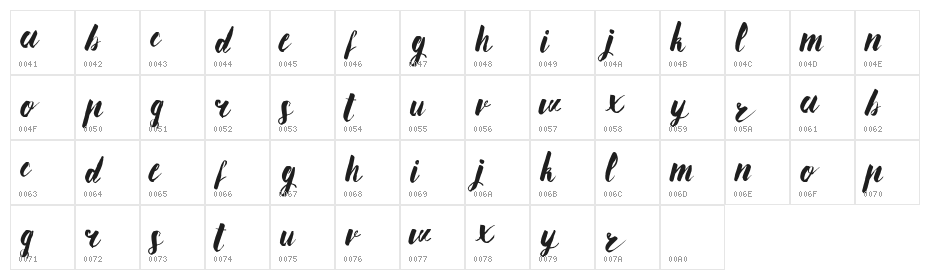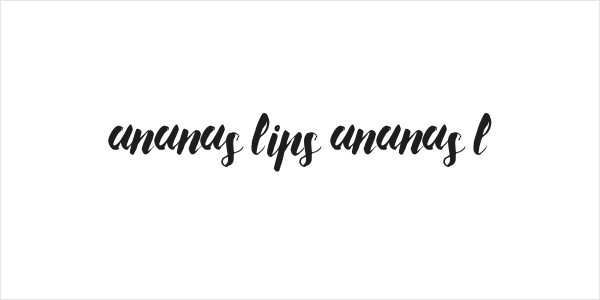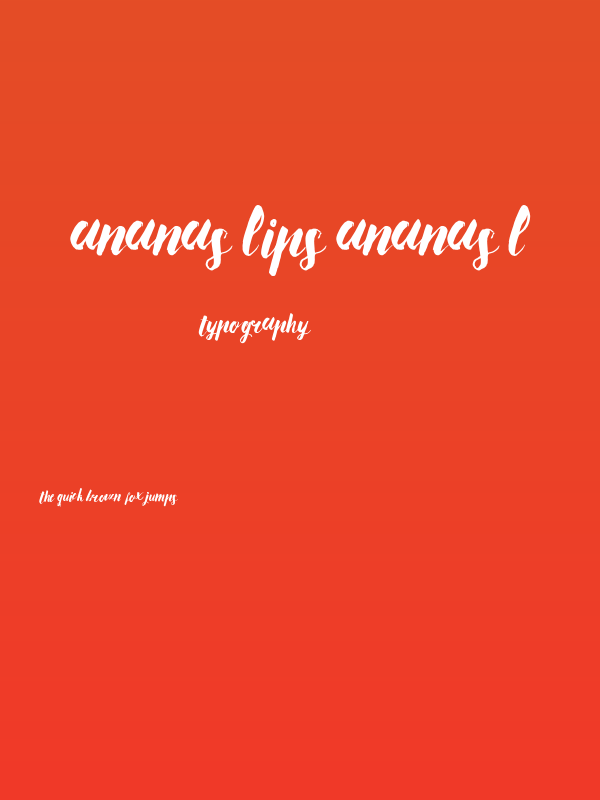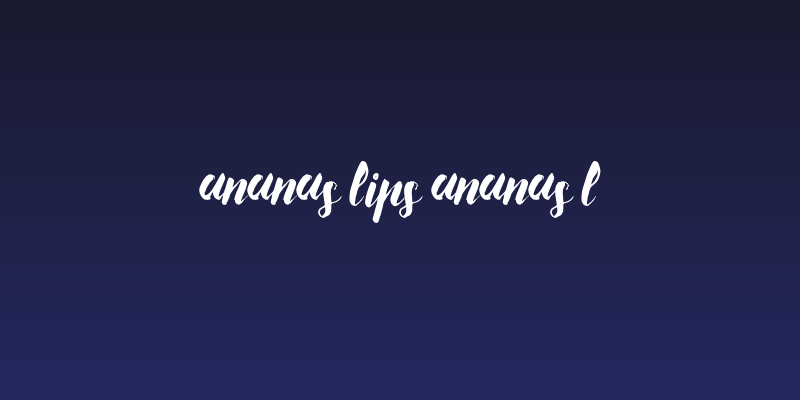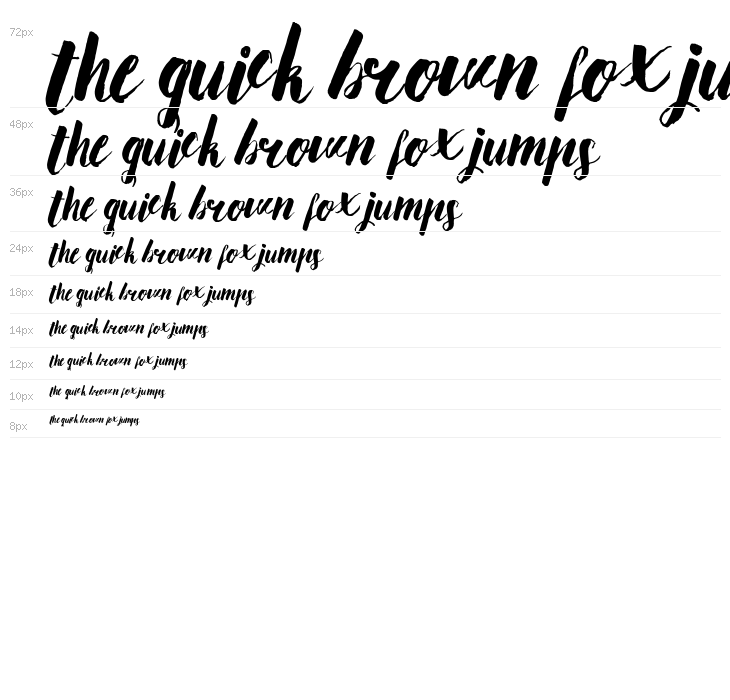
Ananas Lips Ananas L Font
Ananas Lips Ananas L Description
This font features a bold and expressive script style, characterized by its fluid, cursive strokes and dynamic flow. The letters are interconnected, creating a sense of movement and elegance. The brush-like texture adds a handcrafted feel, making it ideal for creative and artistic projects. The overall appearance is both modern and classic, with a touch of sophistication. The font's thick strokes and varying line widths contribute to its high contrast, enhancing its visual impact. It is well-suited for designs that require a personal and artistic touch.
Overall StyleModern, Classic
Use CaseLogos, Headlines, Invitations
Proposed ProjectsIdeal for wedding invitations, branding, packaging, and artistic posters.